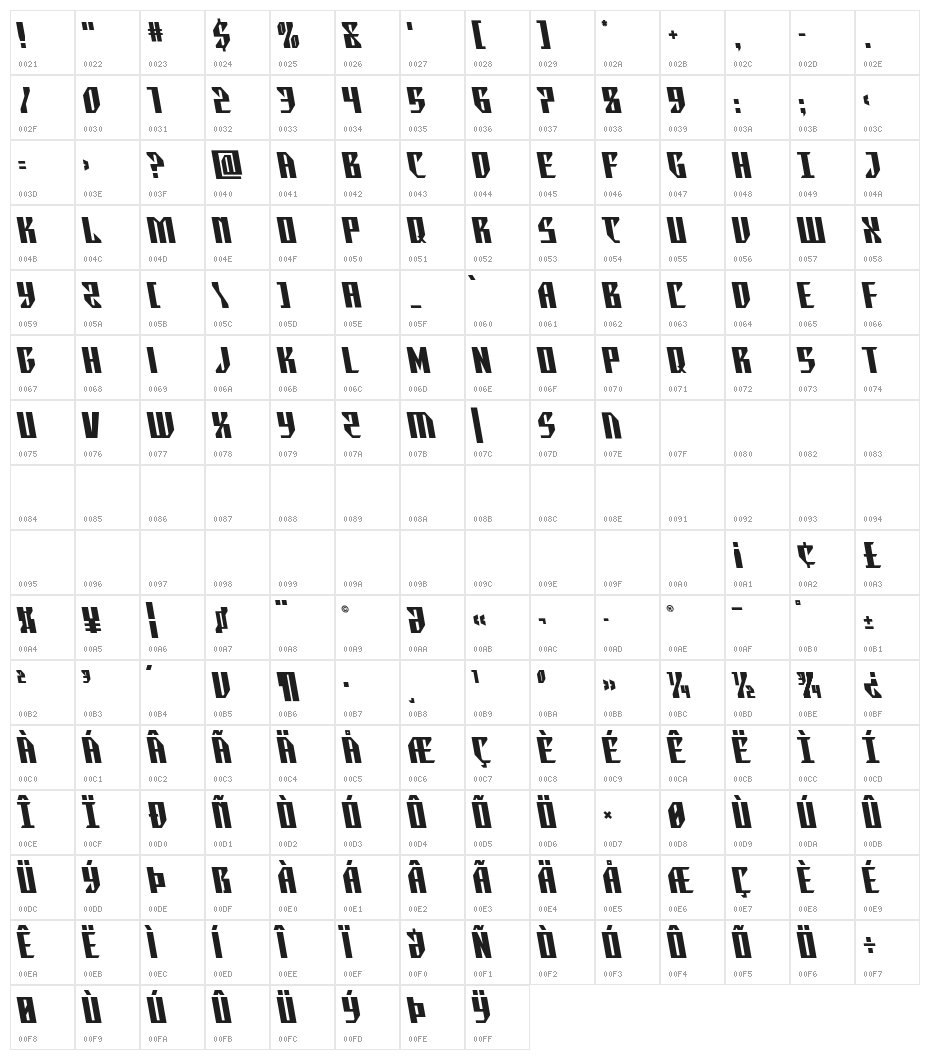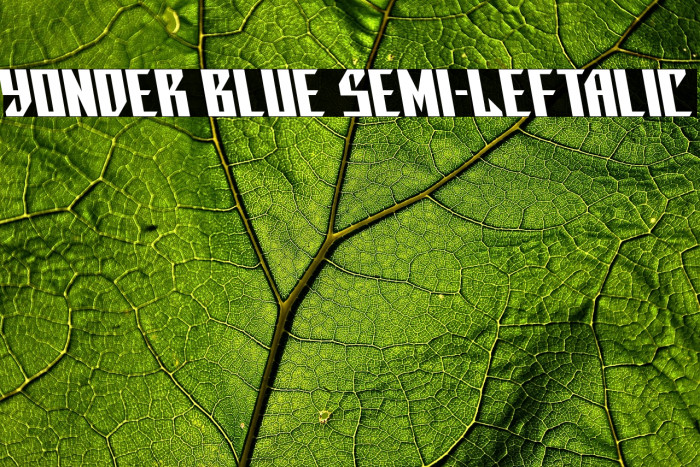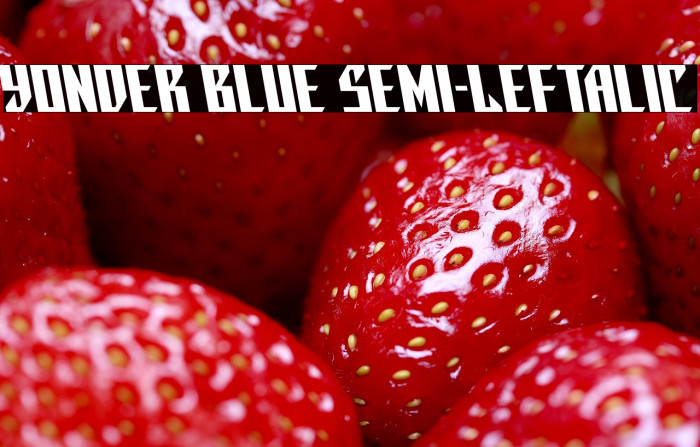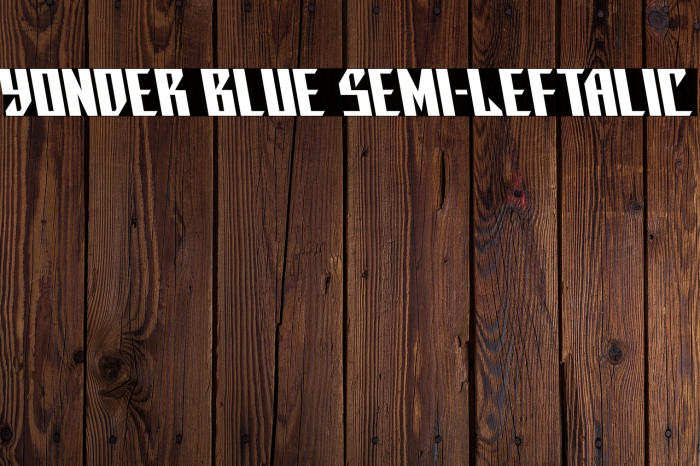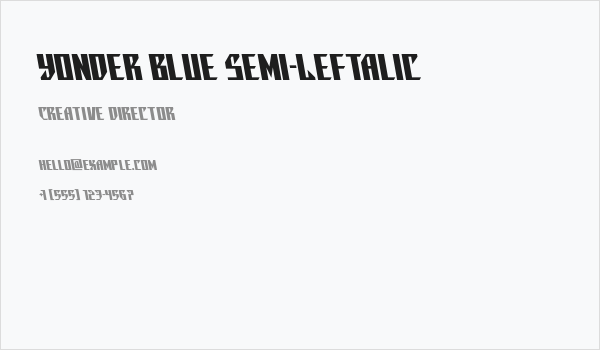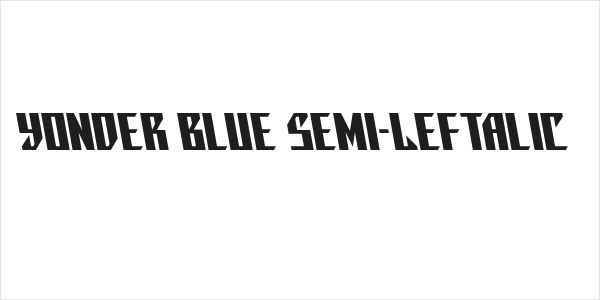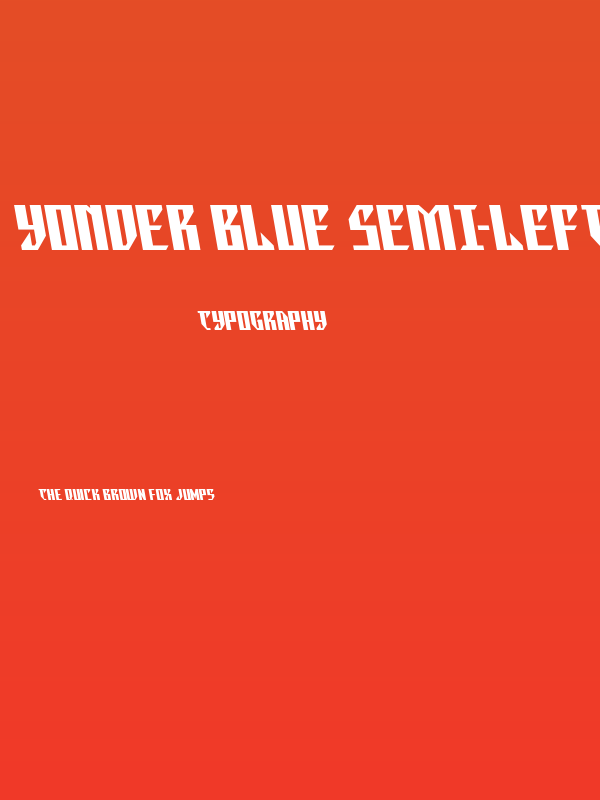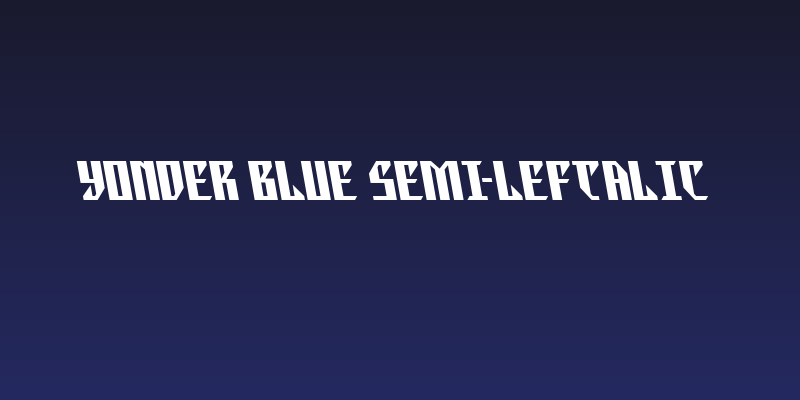
Yonder Blue Semi-Leftalic Font
Yonder Blue Semi-Leftalic Description
This font features a bold and angular design with a distinct geometric style. The characters are sharply cut with a dynamic slant, giving an impression of movement and energy. The uppercase and lowercase letters maintain a consistent style, with strong vertical and diagonal lines. The numbers and special characters follow the same angular theme, ensuring uniformity across all glyphs. This font's unique appearance makes it stand out, ideal for projects that require a modern and edgy look.
| Proposed Projects | Suitable for branding, posters, and headlines that require a modern and striking appearance. |